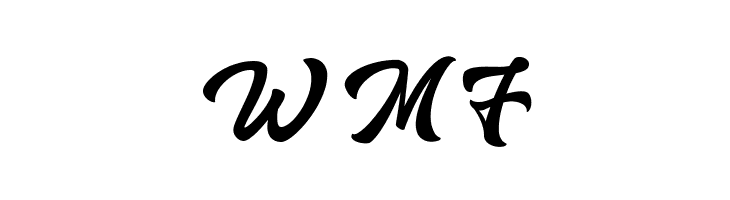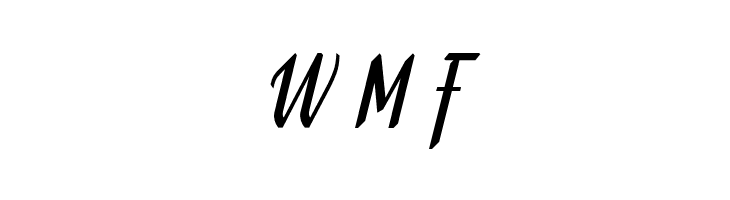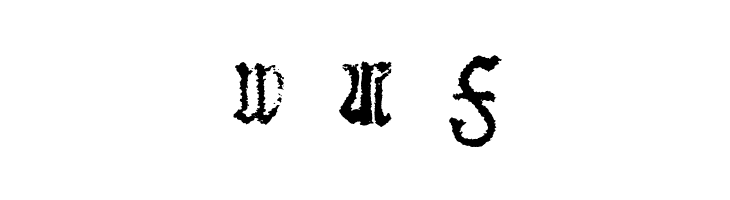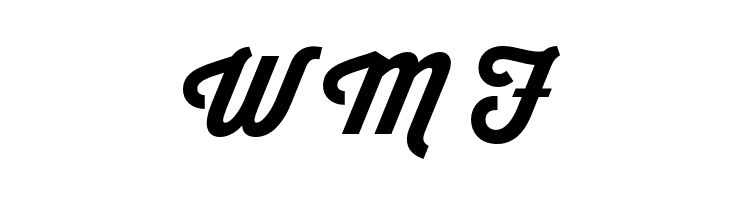
A classic, distressed font with medium contrast and a hand-crafted feel.
A classic serif font with bold strokes and high contrast, exuding elegance and authority.
A graceful and flowing script font with elegant, continuous strokes.
A bold, flowing script font with elegant, interconnected characters.
A bold, dynamic script font with a sense of motion and elegance.
A blackletter font with a typewriter texture, combining historical elegance with a vintage feel.
A bold, elegant script font with flowing, interconnected letters and high contrast.
A sleek, italic font with modern elegance and classic charm.
A bold, elegant script font with dramatic flourishes and high contrast.
A refined serif font with a light weight and classic elegance.